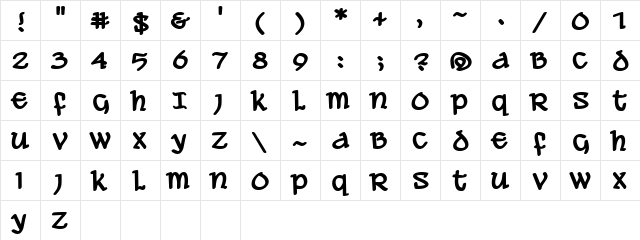
Ale and Wenches BB Bold
Design Context for Ale and Wenches BB Typeface
Ale and Wenches BB is a composed and adaptable typeface that performs quietly and consistently across a wide range of design contexts. Its bold stroke weight gives it real presence on the page.